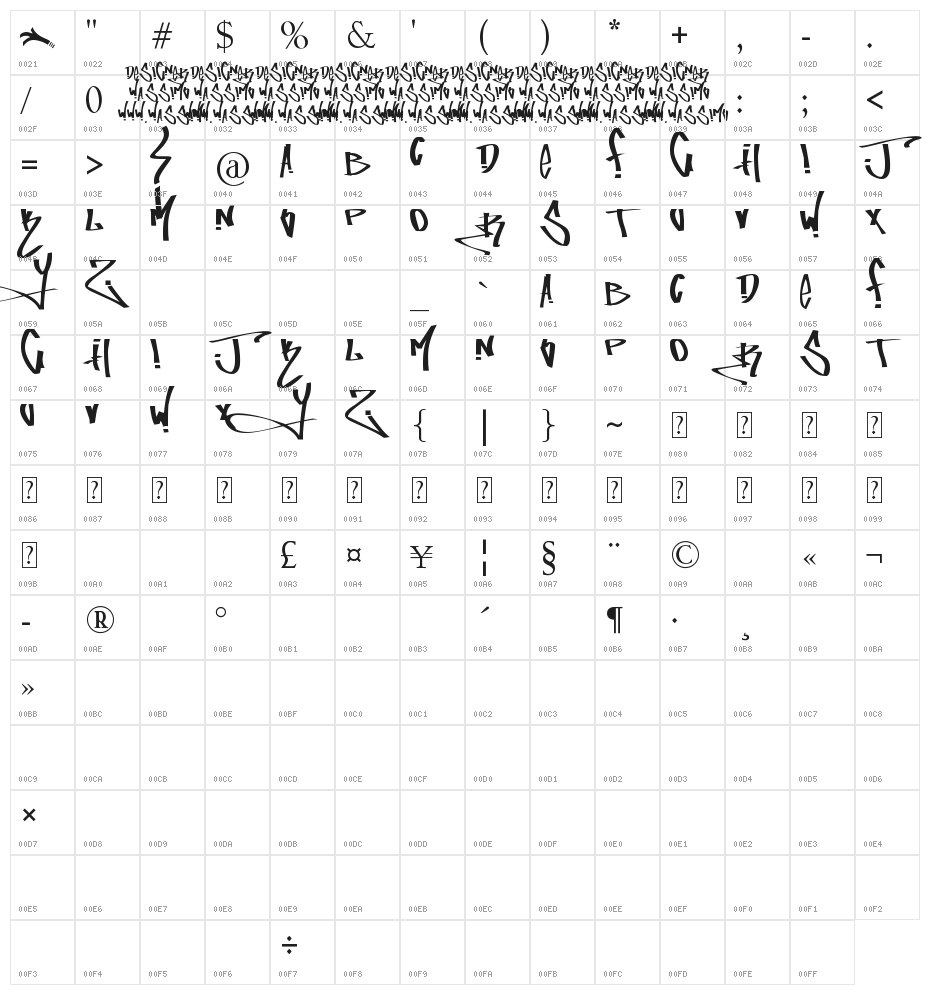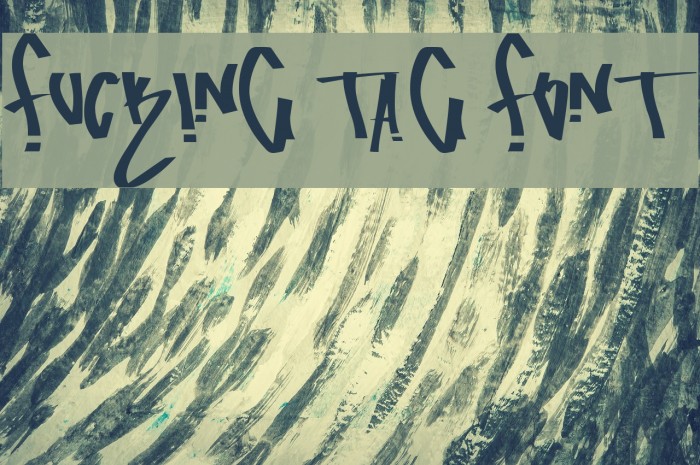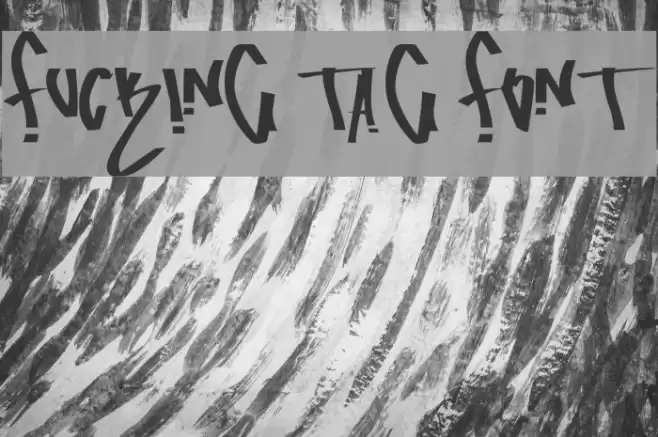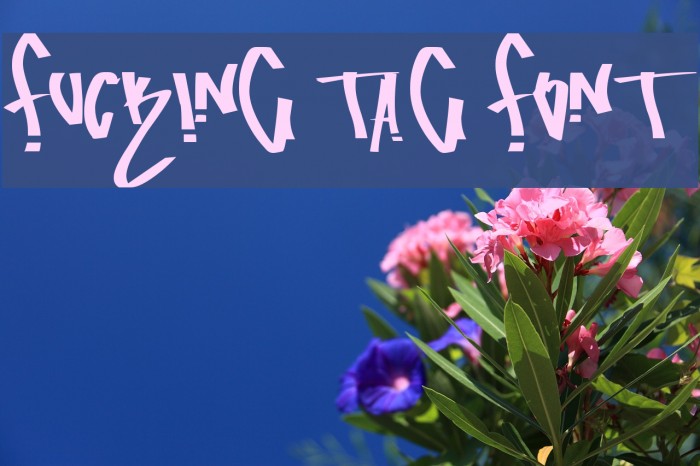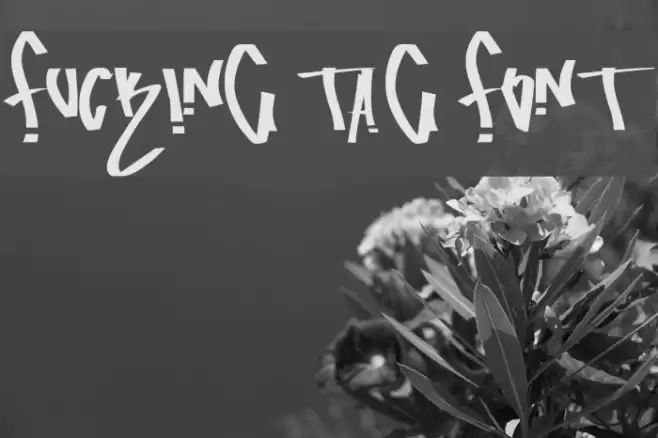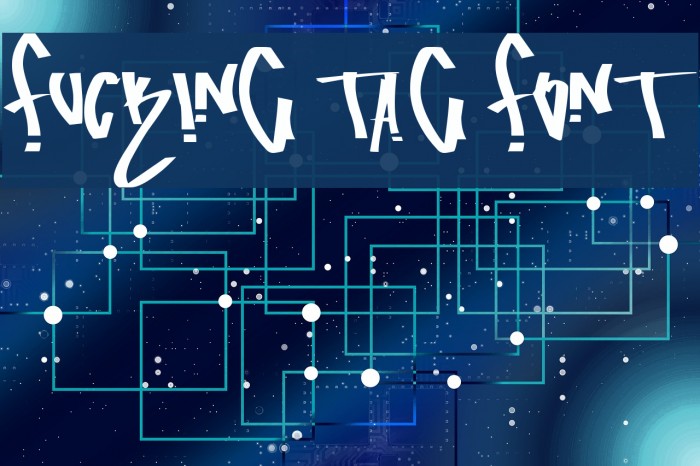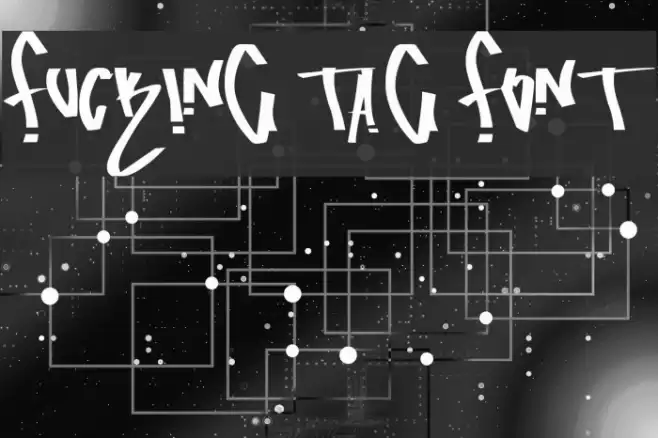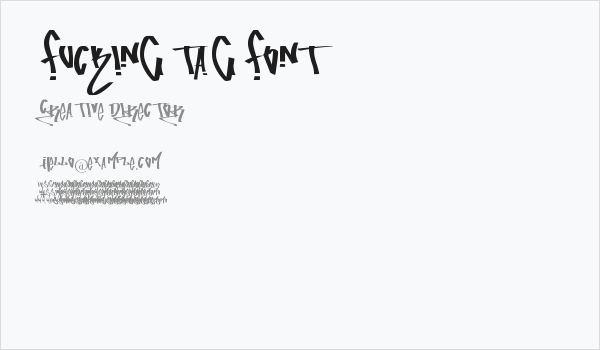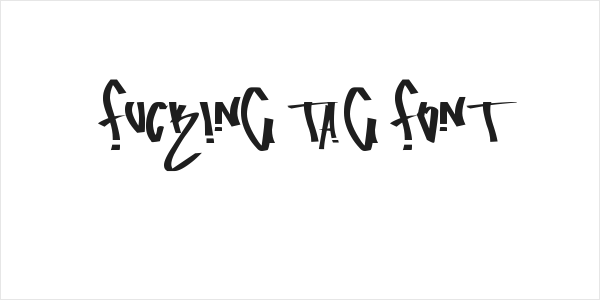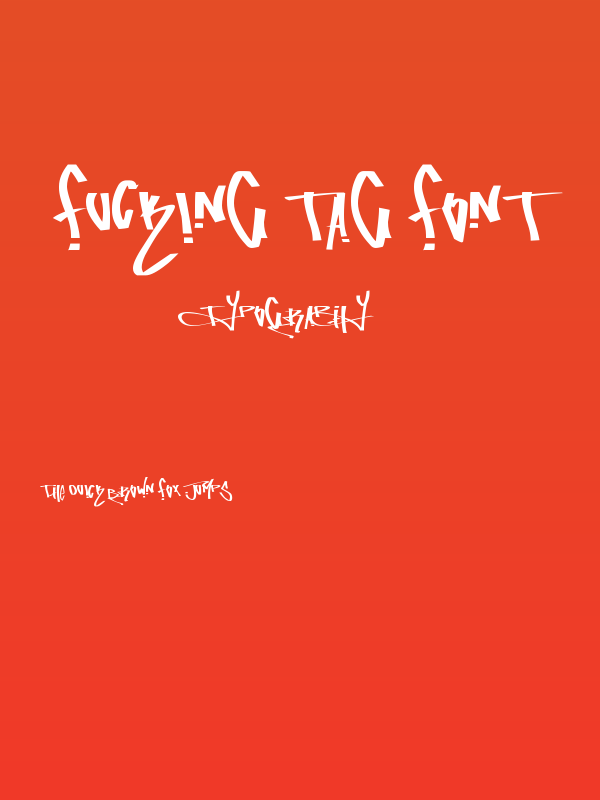
fucking tag font Font
fucking tag font Description
This font exudes a bold, urban graffiti style, characterized by its sharp, angular lines and dynamic, energetic flow. The uppercase and lowercase letters are highly stylized, with exaggerated curves and strokes that mimic the spontaneous feel of street art. The font's design is chaotic yet controlled, with a sense of movement that captures the rebellious spirit of graffiti culture. The characters are tightly spaced, enhancing the compact and dense appearance. The overall aesthetic is edgy and modern, making it ideal for projects that require a bold statement.
| Overall Style | Modern, Edgy |
| Proposed Projects | Ideal for urban-themed designs, streetwear branding, music album covers, and event posters. |